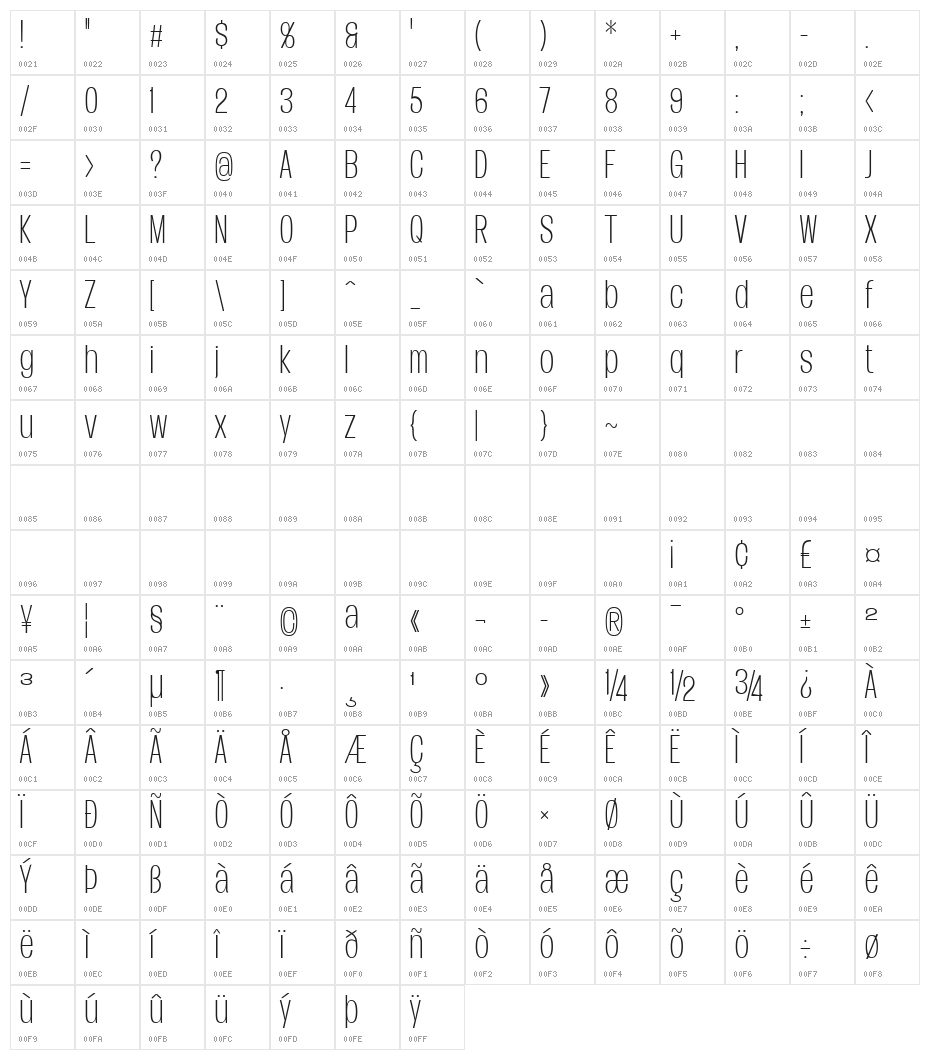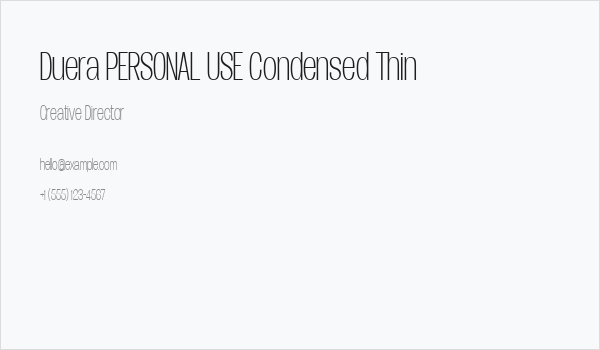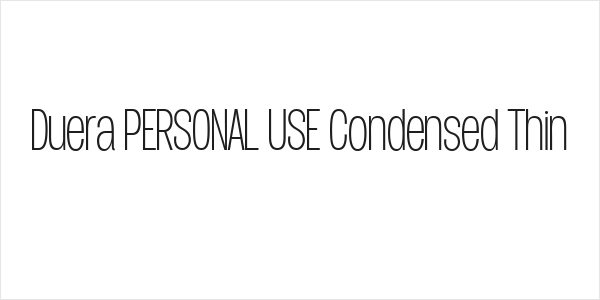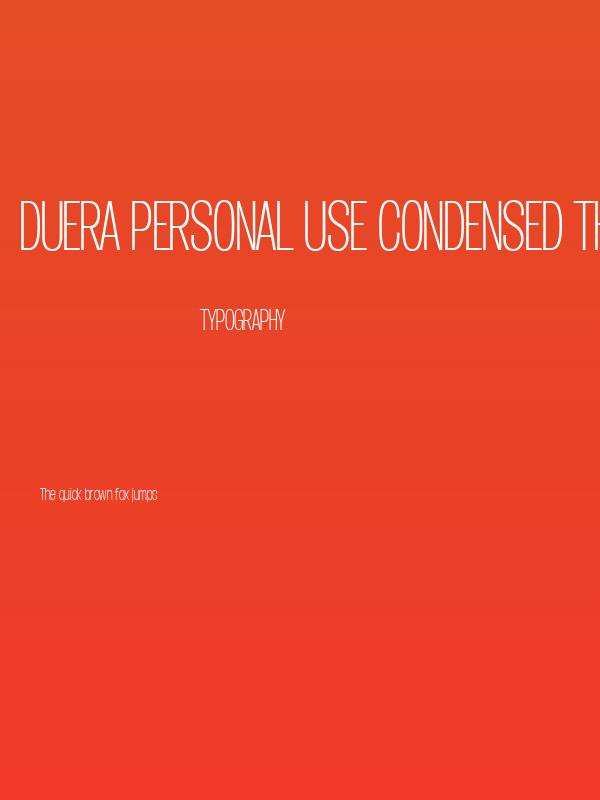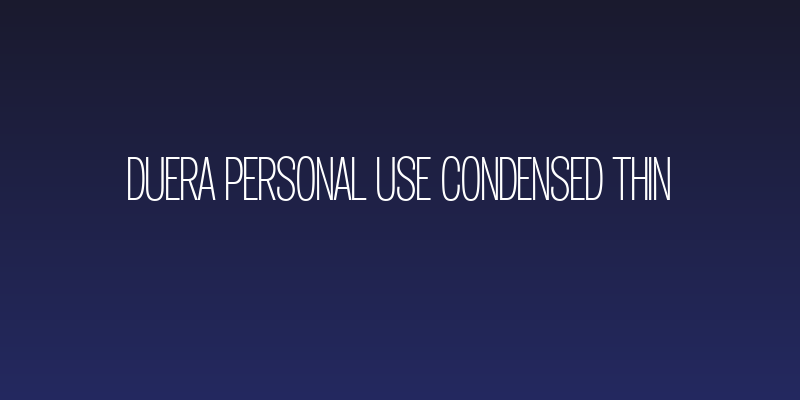
Duera PERSONAL USE Condensed Thin Font
Duera PERSONAL USE Condensed Thin Description
This font features a sleek and modern design with a condensed structure, making it ideal for space-saving applications. The thin strokes give it an elegant and sophisticated appearance, while maintaining readability. The uppercase and lowercase letters are well-proportioned, and the numerals are clear and distinct. Special characters are included, enhancing its versatility for various design needs. The overall aesthetic is minimalistic, making it suitable for contemporary projects.
| Proposed Projects | Ideal for modern branding, editorial design, minimalist posters, and digital interfaces. |